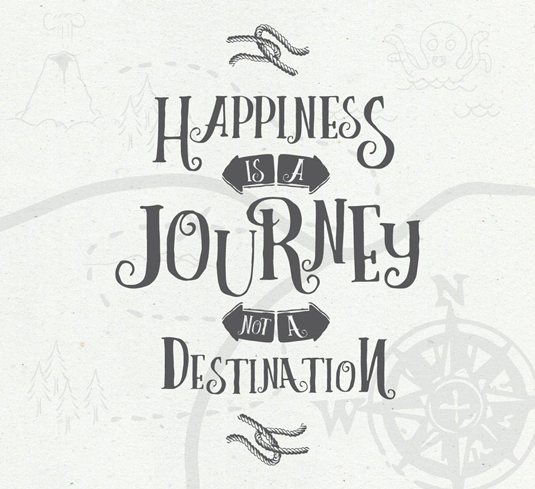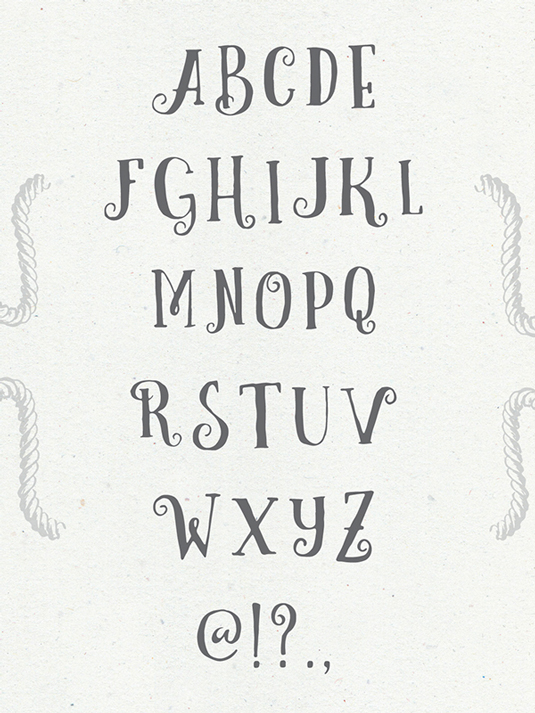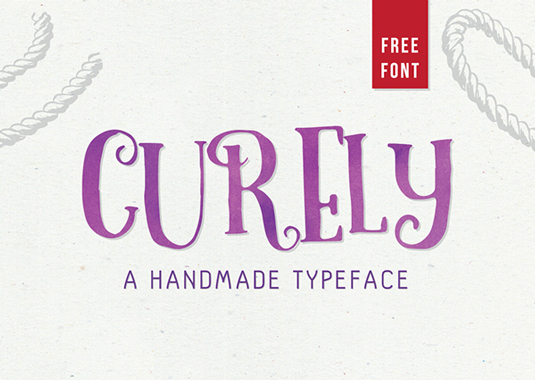
Font of the day: Curely
Every day we showcase the best fonts on the web. Today it's Curely from Konstantine Studio, which is totally free to download.
Curely from Konstantine Studio
Today's typeface of choice is handmade design Curely from the graphic design team at Konstantine Studio. Available on Behance, the design is desrcibed as 'a handmade, decorative typeface inspired by girly stuff and cuteness overload. A great fit for your cute and sweet design projects'.